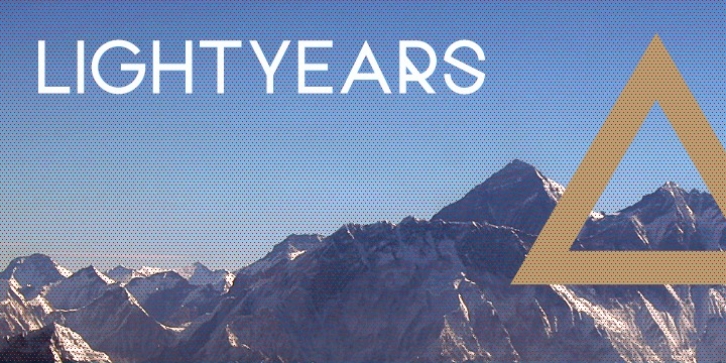
Lightyears is a geometric typeface that features a highly stylized lowercase and variations of alternates to create titling results on the fly. You can set the typeface to all-caps for a simple look, or you can alternate uppercase and lowercase letters for a highly stylized title. Uppercase stylistic alternates have a “stereo” look as the crossbars and some stems are doubled in a non-traditional way.